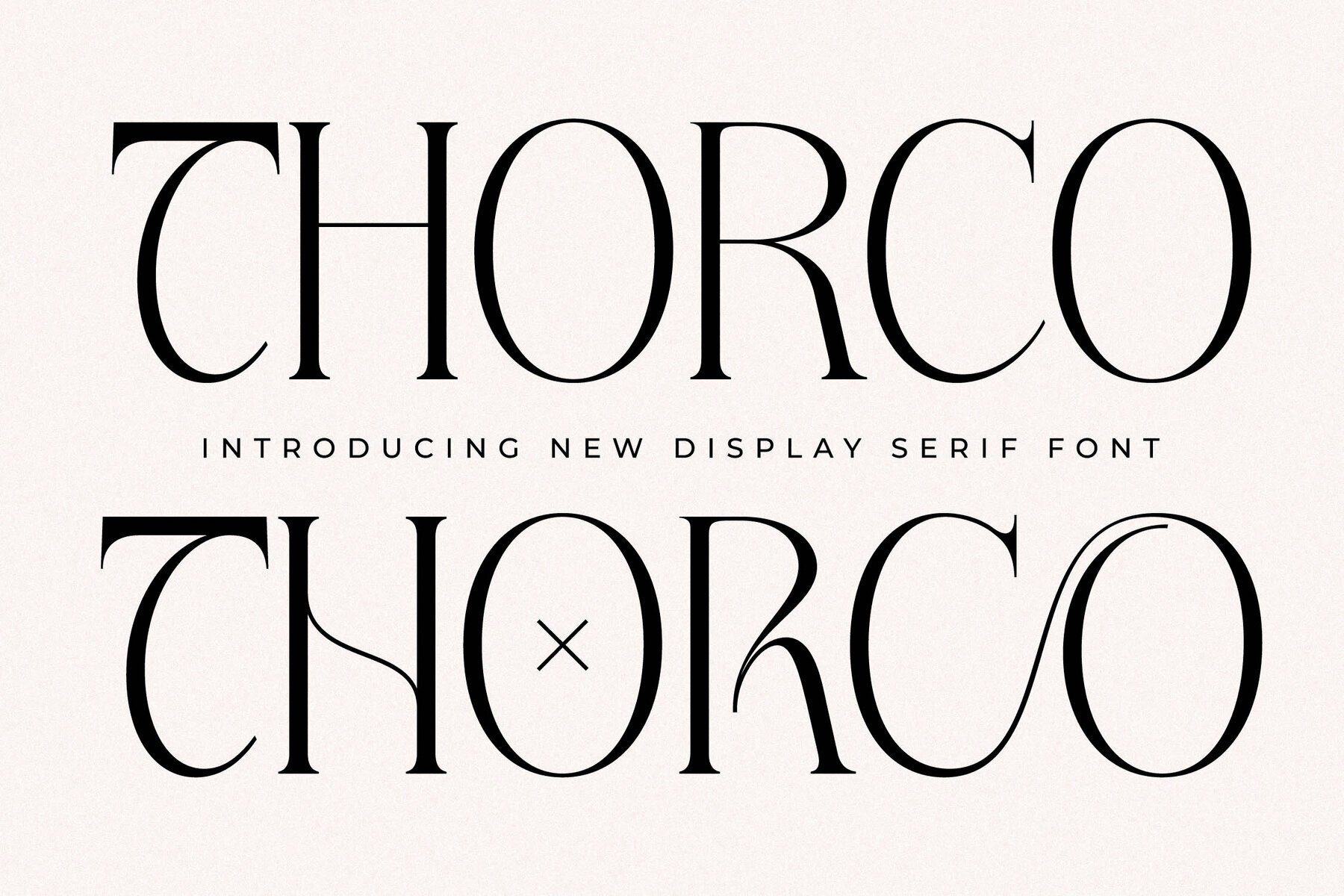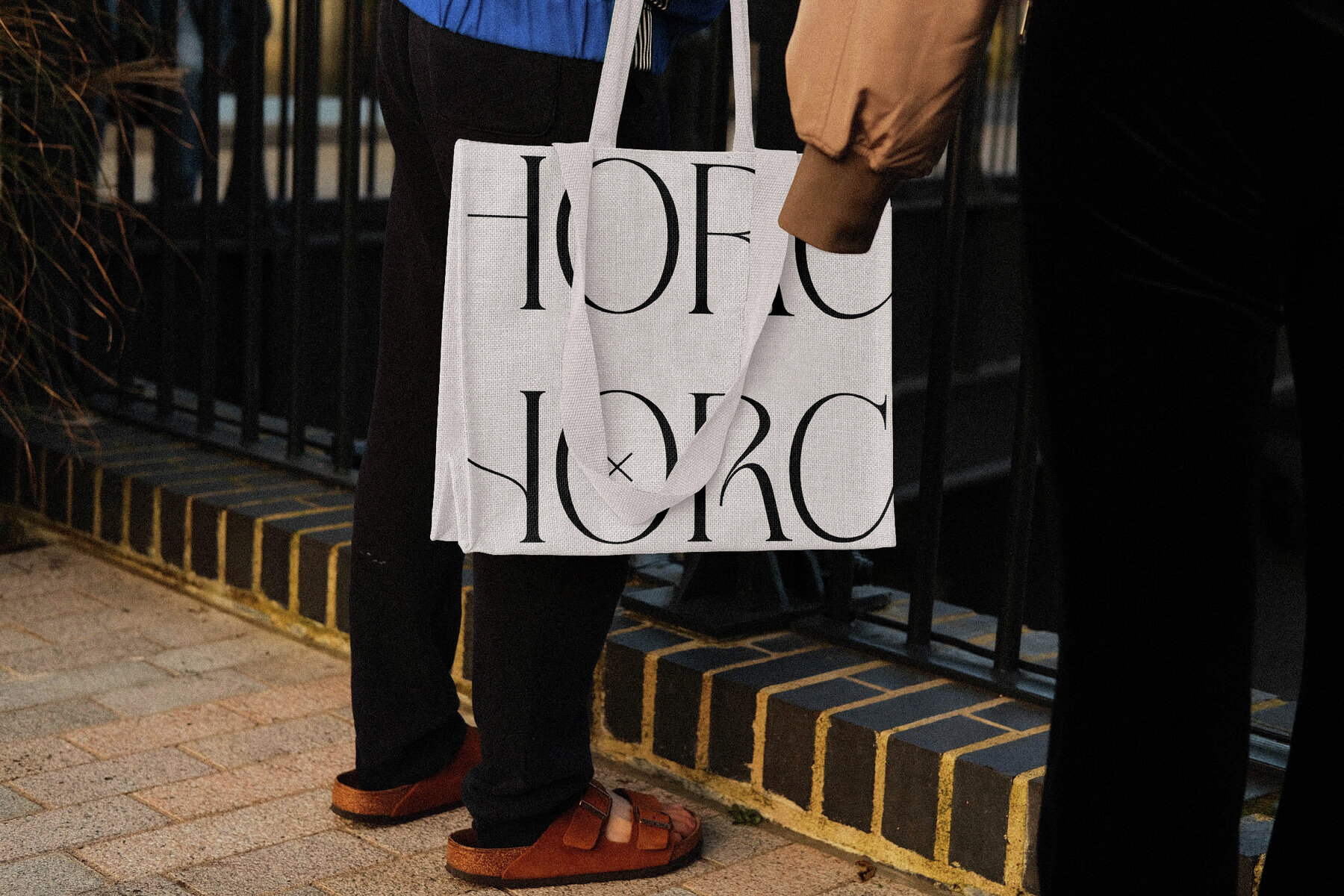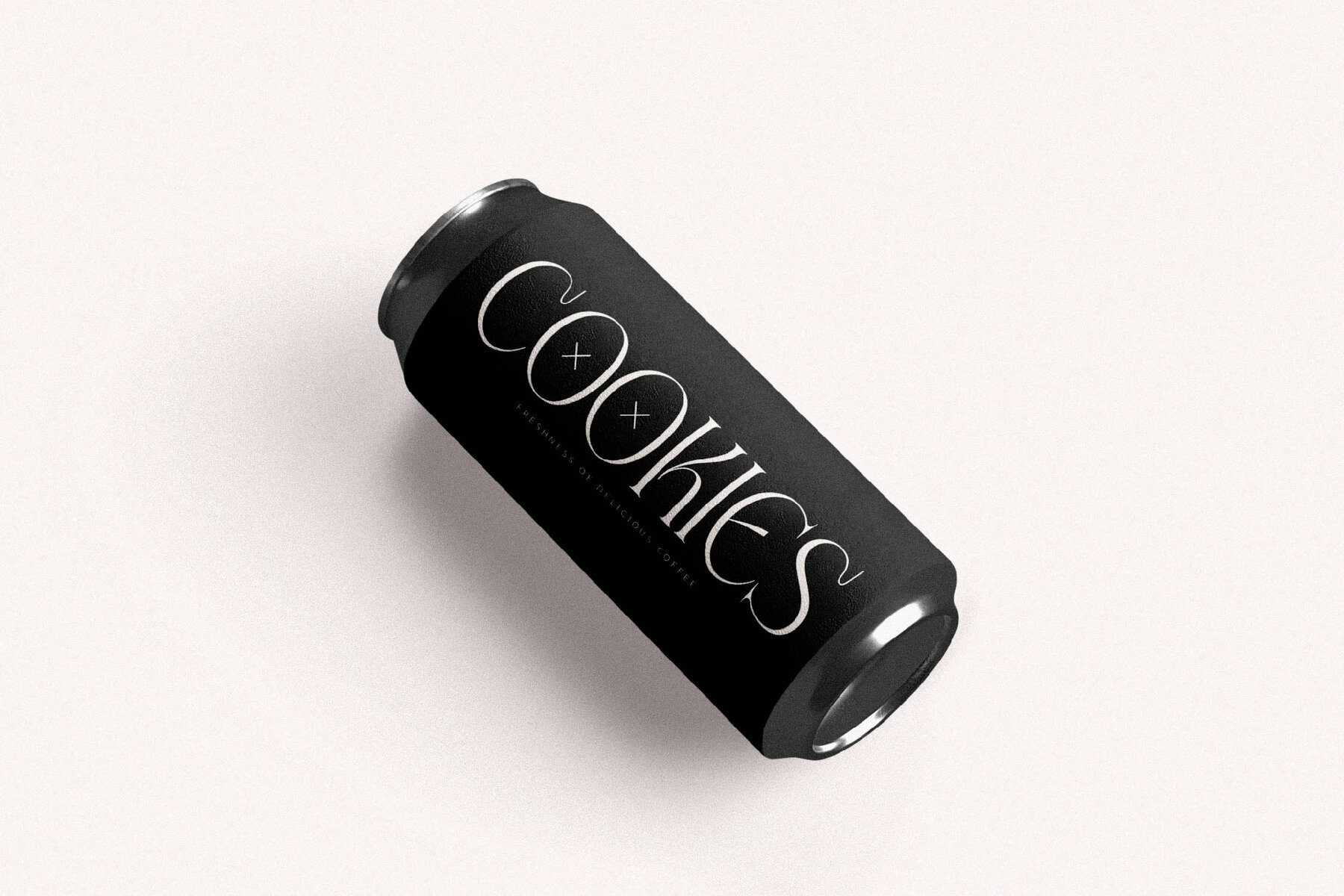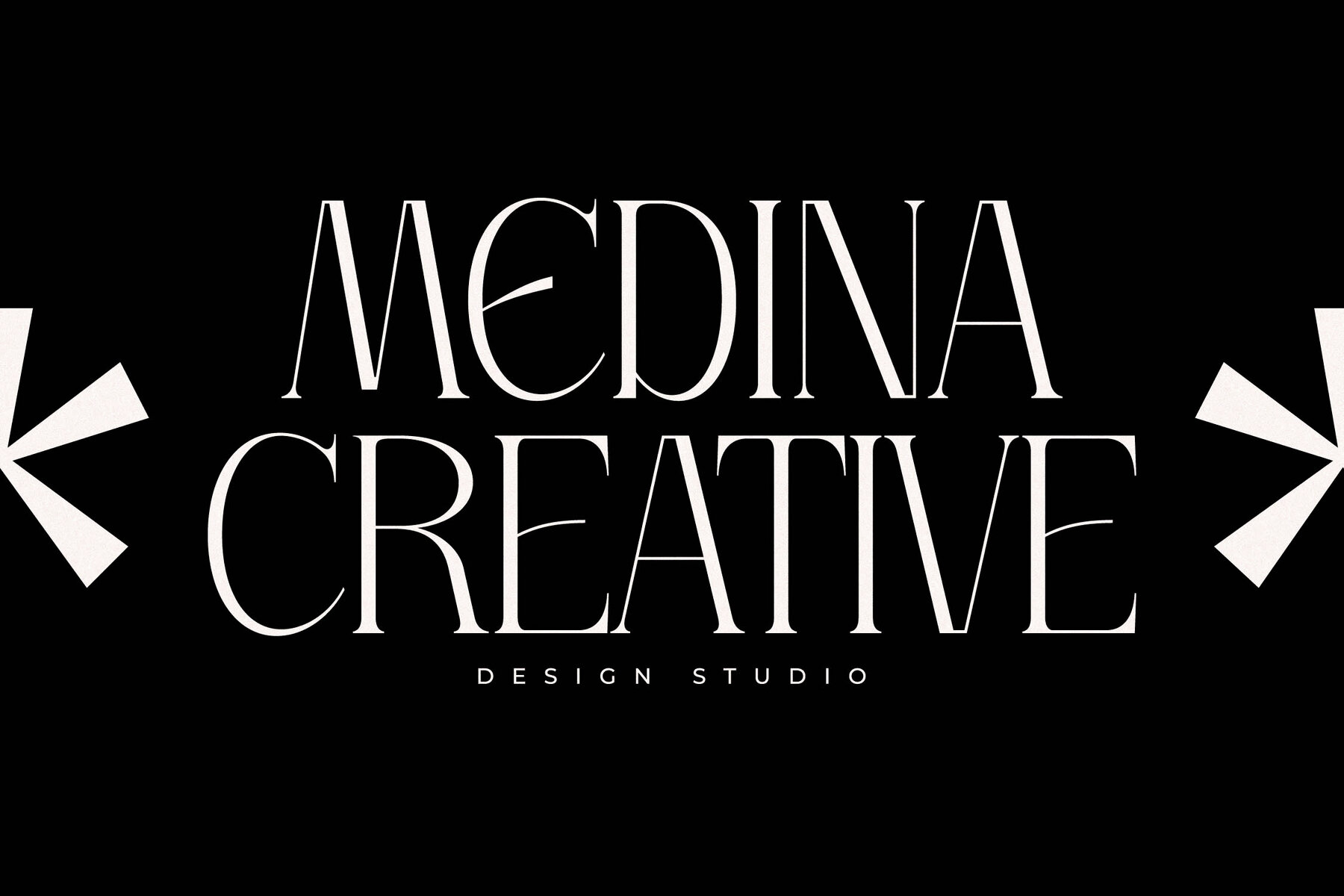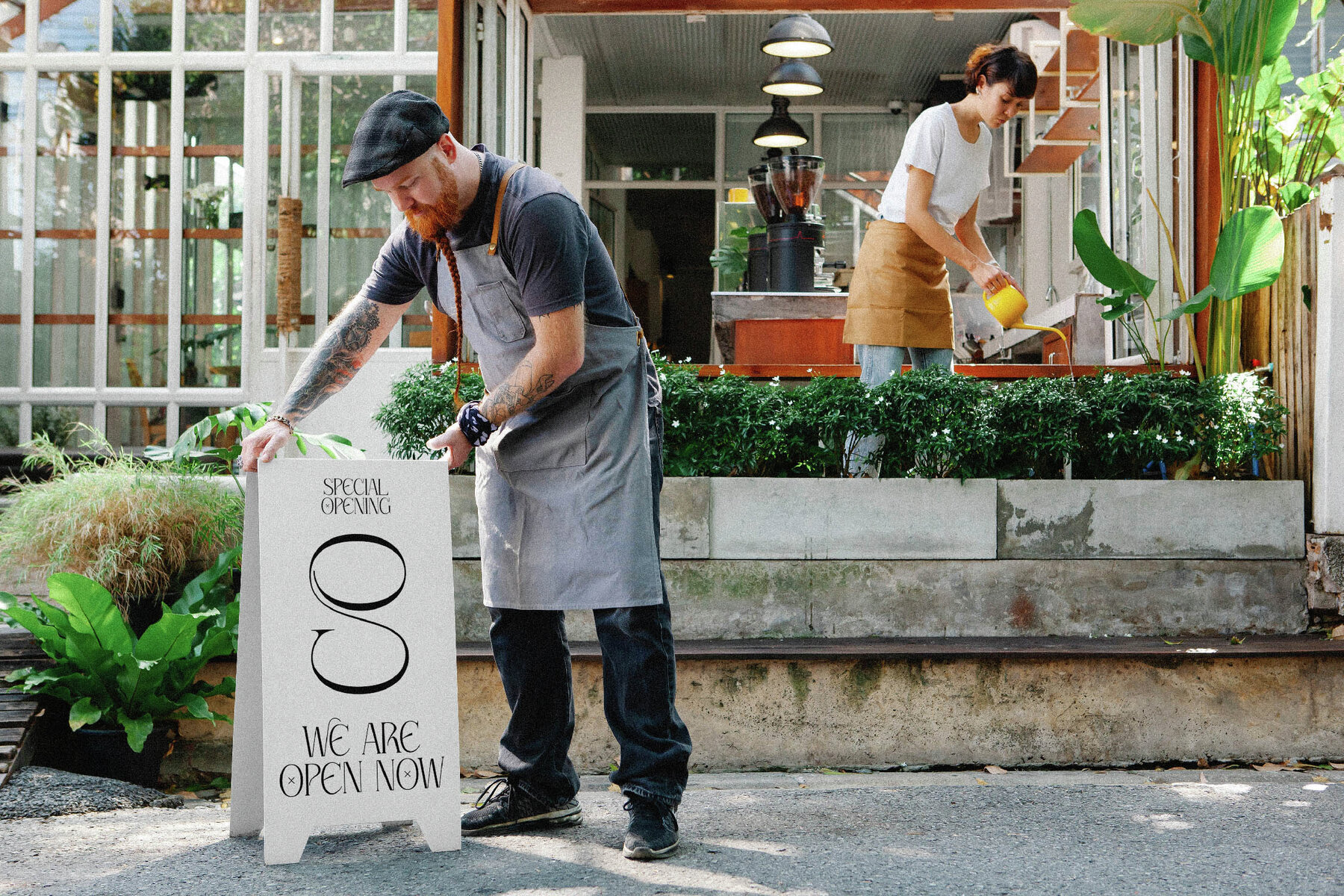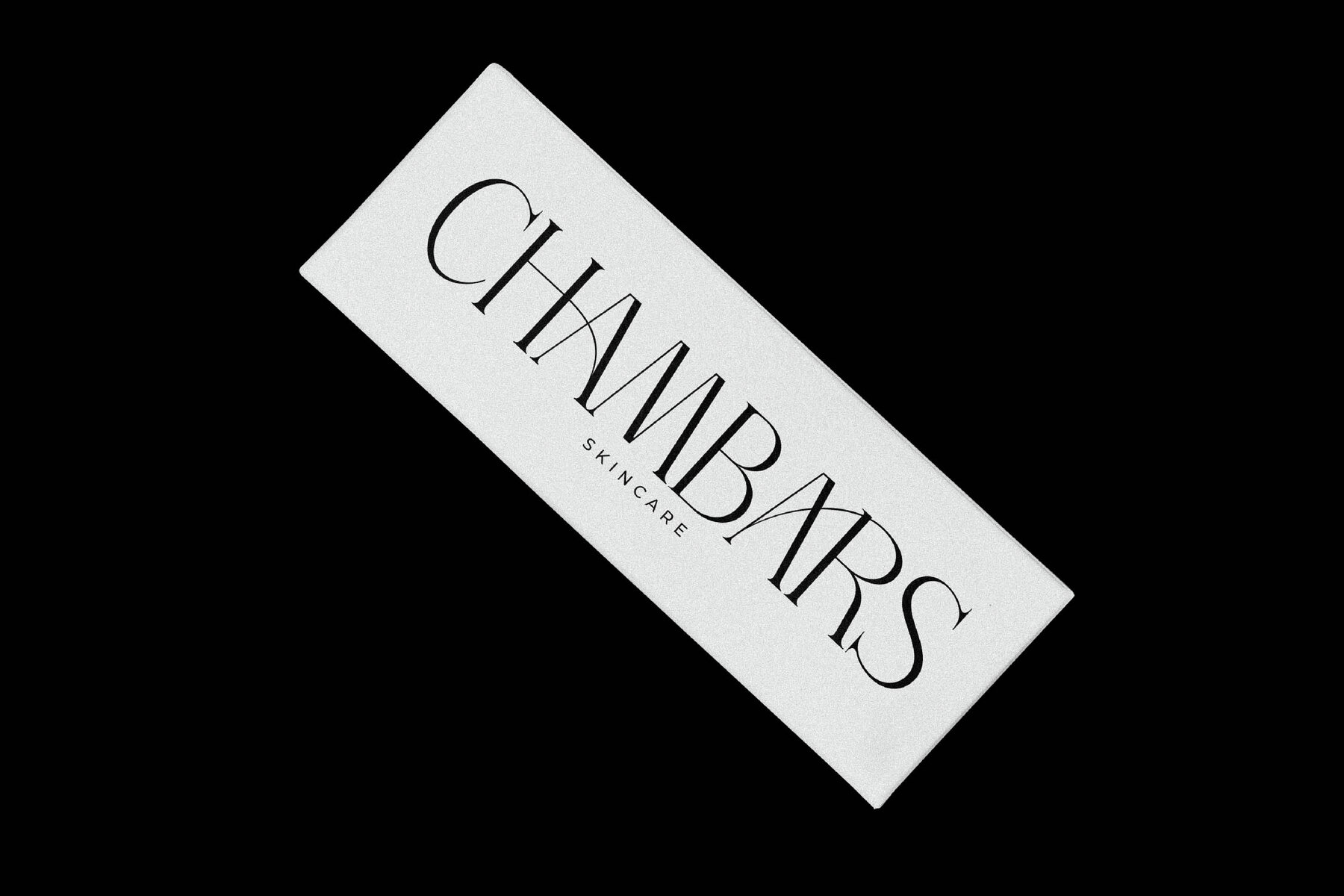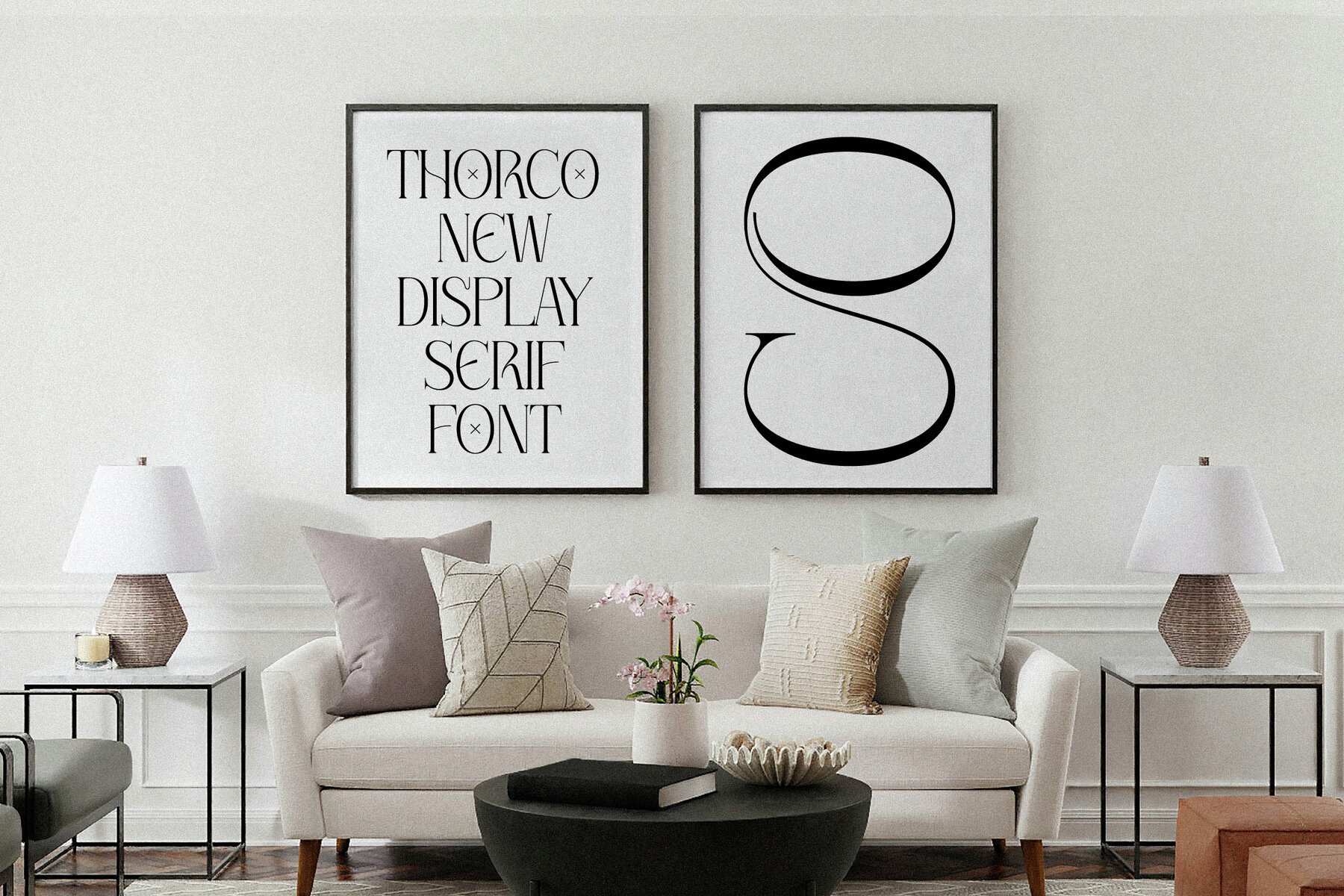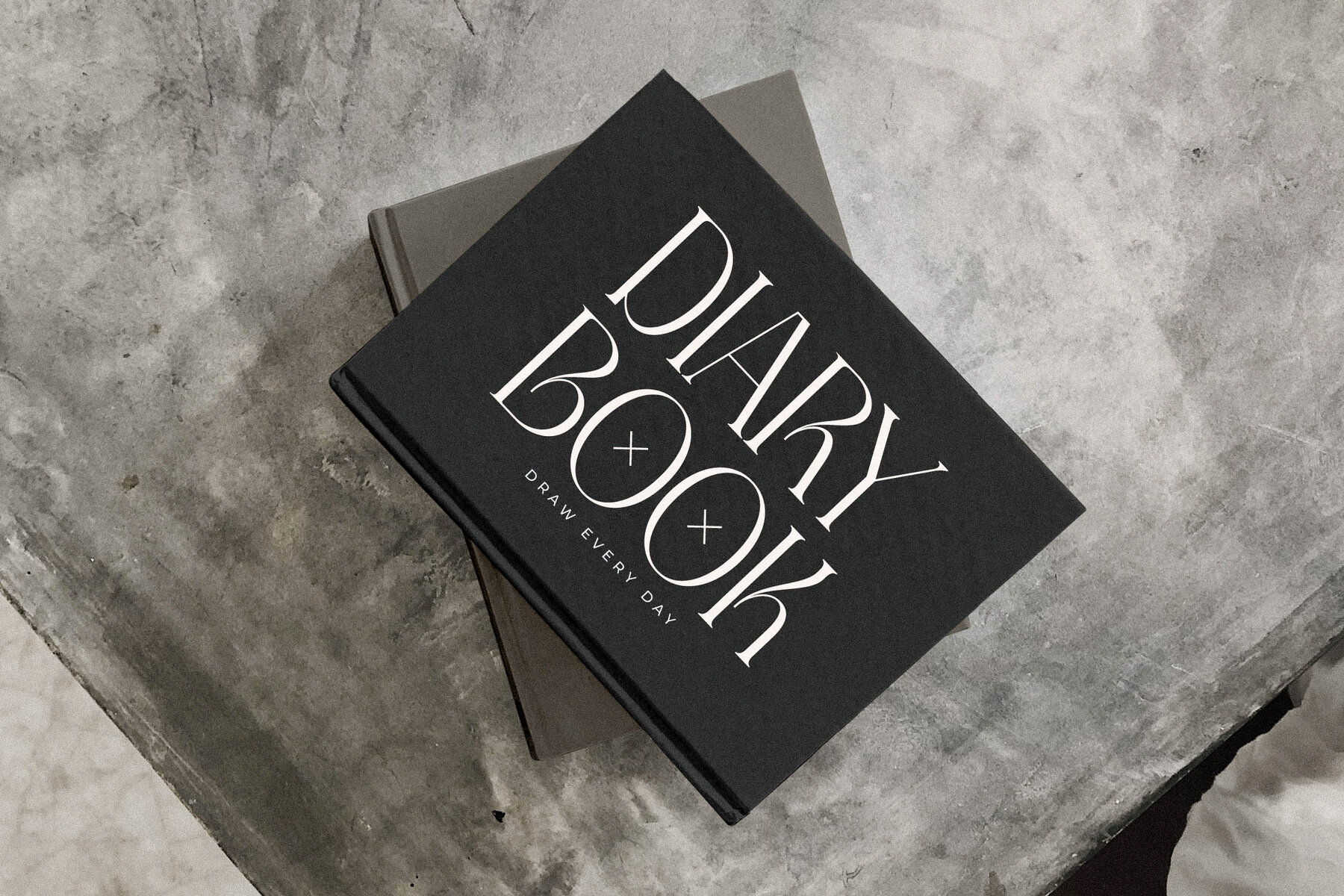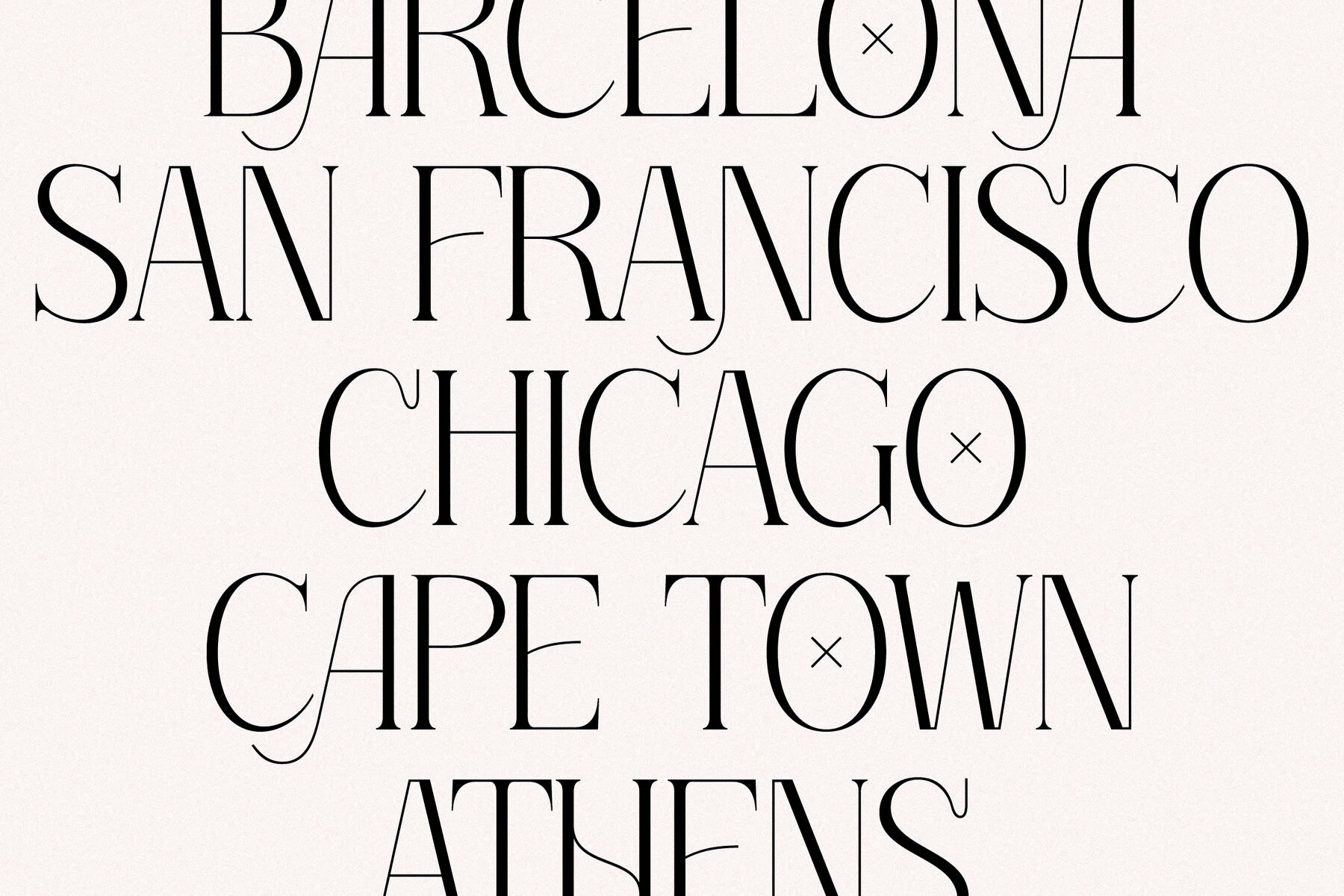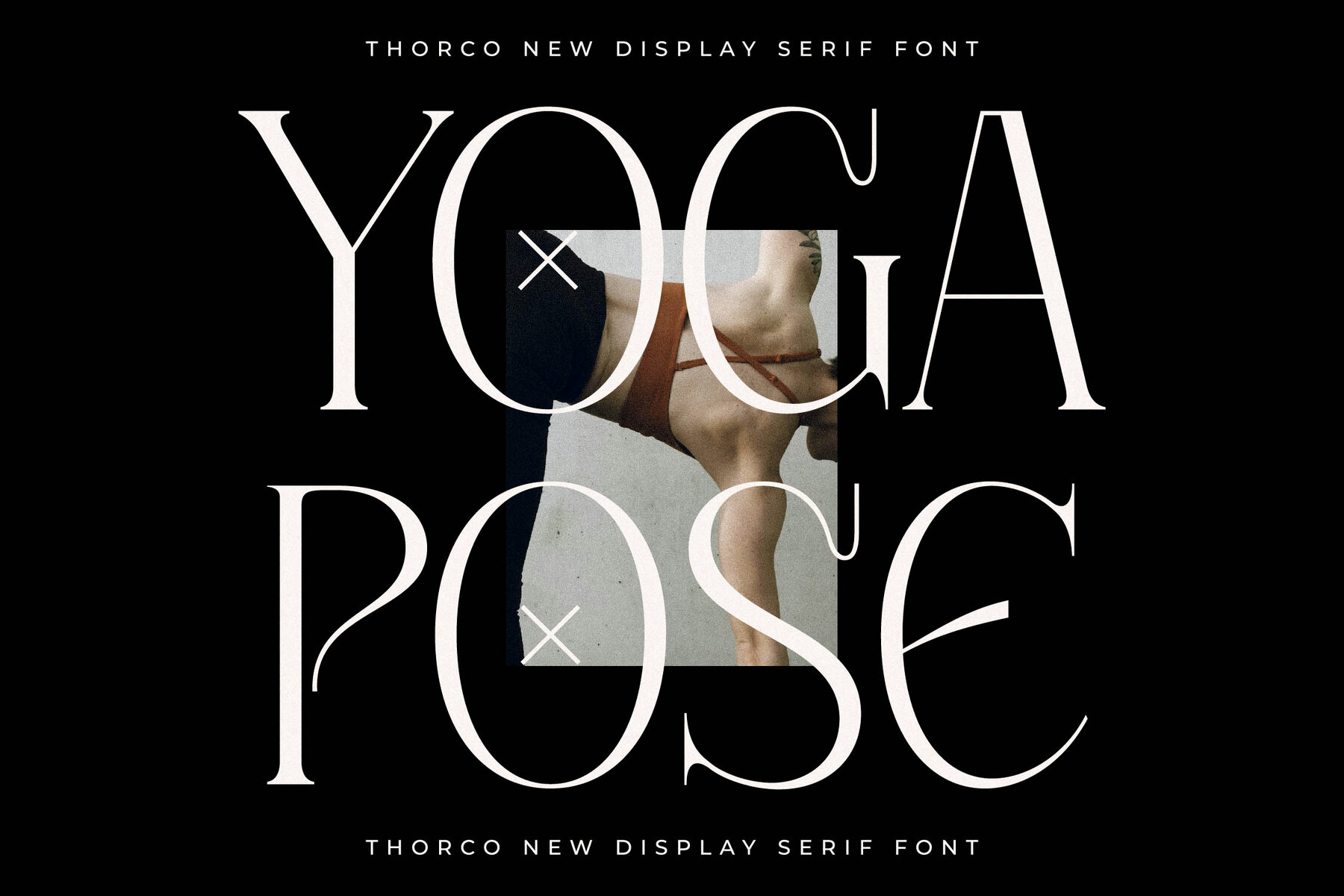
Thorco Font
Thorco Regular
Thorco Italic
Typography aficionados will appreciate the refined allure of the Thorco Typeface. This serif design merges contemporary and traditional elements, offering a distinctive, modern look that serves as the ideal touch for elegance and luxury. From sophisticated logos to stylish book titles, fashion branding, magazines, and clothing, Thorco Typeface stands as a versatile choice. It also excels in personal expressions like quotes and custom lettering, adaptable to a myriad of creative projects.Thorco Typeface: A Fusion of Modern and Classic Elegance